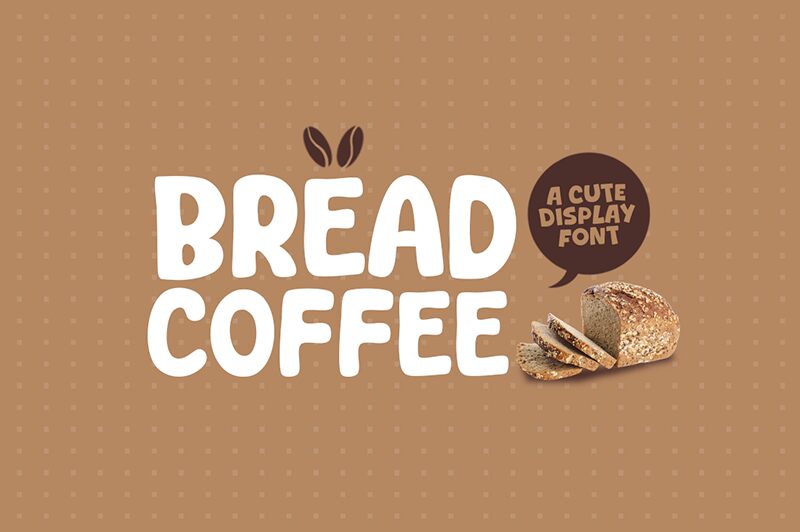
Bread Coffee
Bread Coffee font by Khurasan is a bold, cartoon-style display font that exudes a lively and playful vibe. Its chunky and captivating form makes it perfect for eye-catching headlines, children’s books, and fun branding projects. The exaggerated curves and smooth lines offer a whimsical aesthetic, making it ideal for creative designs in need of an energetic touch.
This free font seamlessly blends fun with functionality, enabling designers to craft engaging visual narratives. Download the Bread Coffee font to infuse your projects with creativity and joy. Whether used for posters or digital media, its distinct personality ensures every design stands out with style.